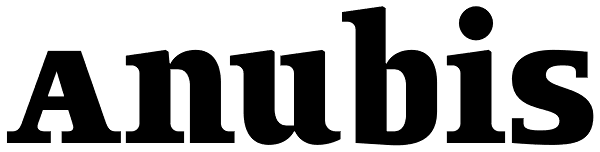
Anubis
Anubis, the first DSType font at MyFonts is back in an improved Pro version. AnubisPro, a slab serif font with a contemporary feel, with Central Europe diacritics, swashes and ligatures, available in OpenType format.